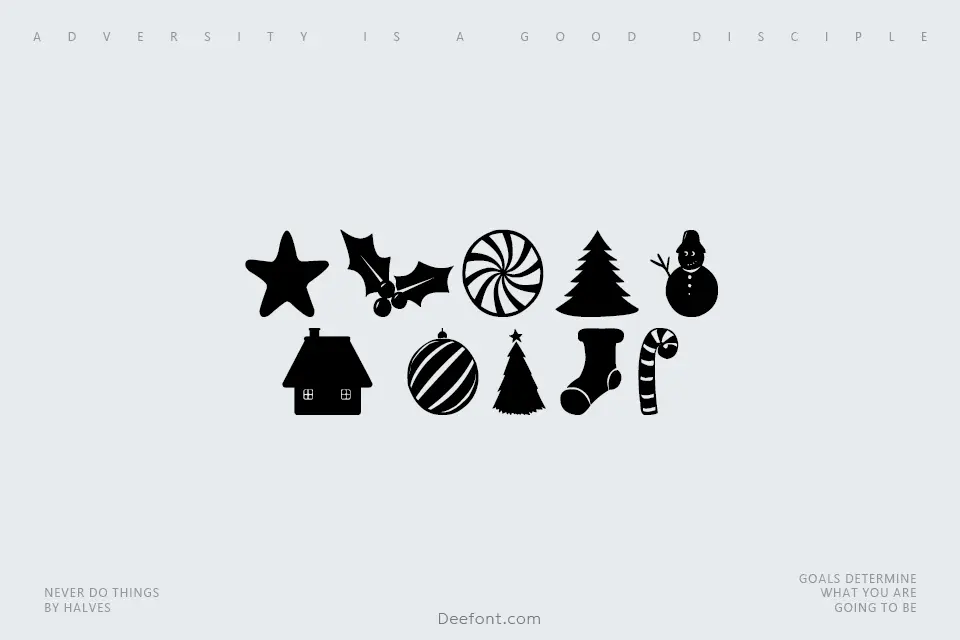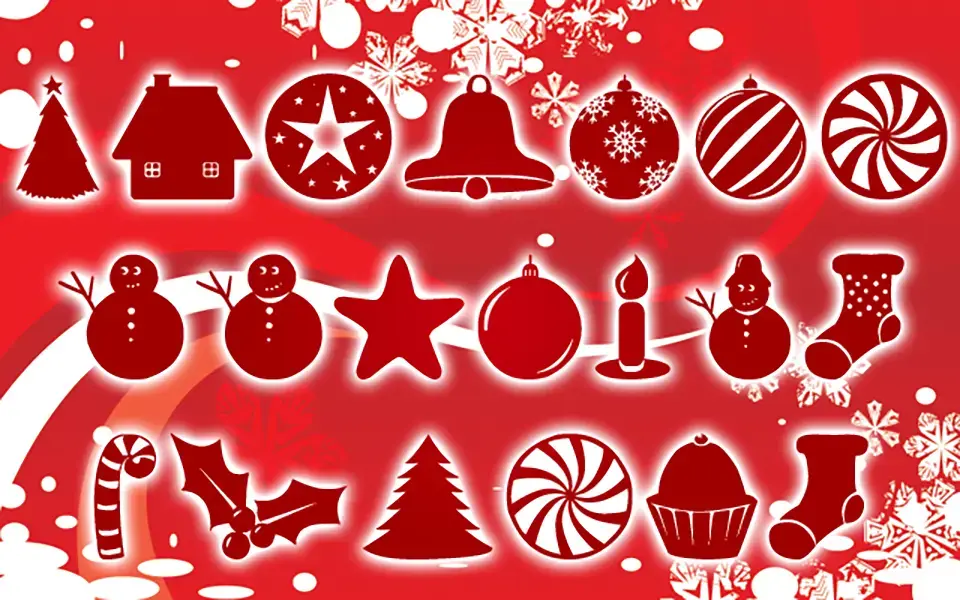
Christmas Shapes Font
Christmas Shapes is a delightful dingbat font that captures the festive spirit of the holidays. Instead of letters, this font is composed of a variety of Christmas-related symbols and icons, making it perfect for creating unique holiday decorations, greeting cards, and themed designs. You can use its charming glyphs, which include everything from snowflakes and ornaments to candy canes and Christmas trees, to add a special touch to your seasonal projects. The whimsical and decorative nature of Christmas Shapes allows for endless creativity, whether you’re designing for print or digital media. It’s an excellent choice for anyone looking to infuse their work with the joy and magic of Christmas.